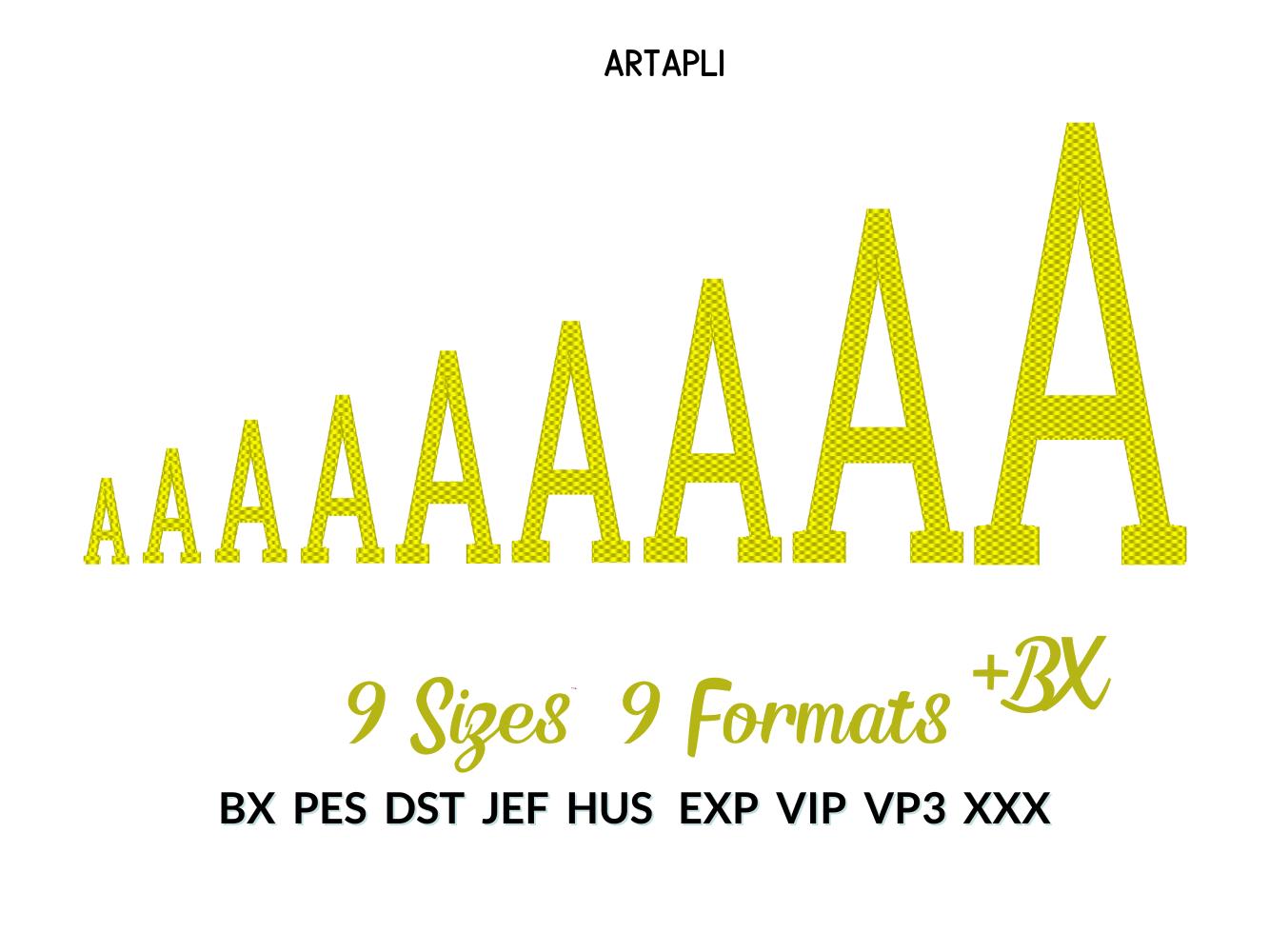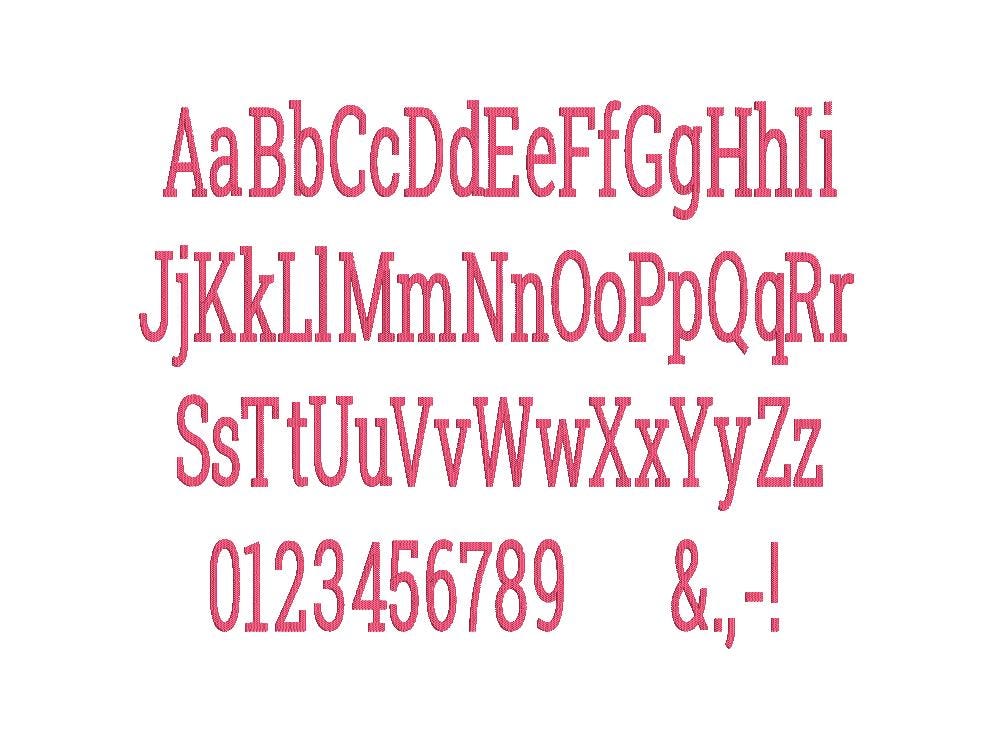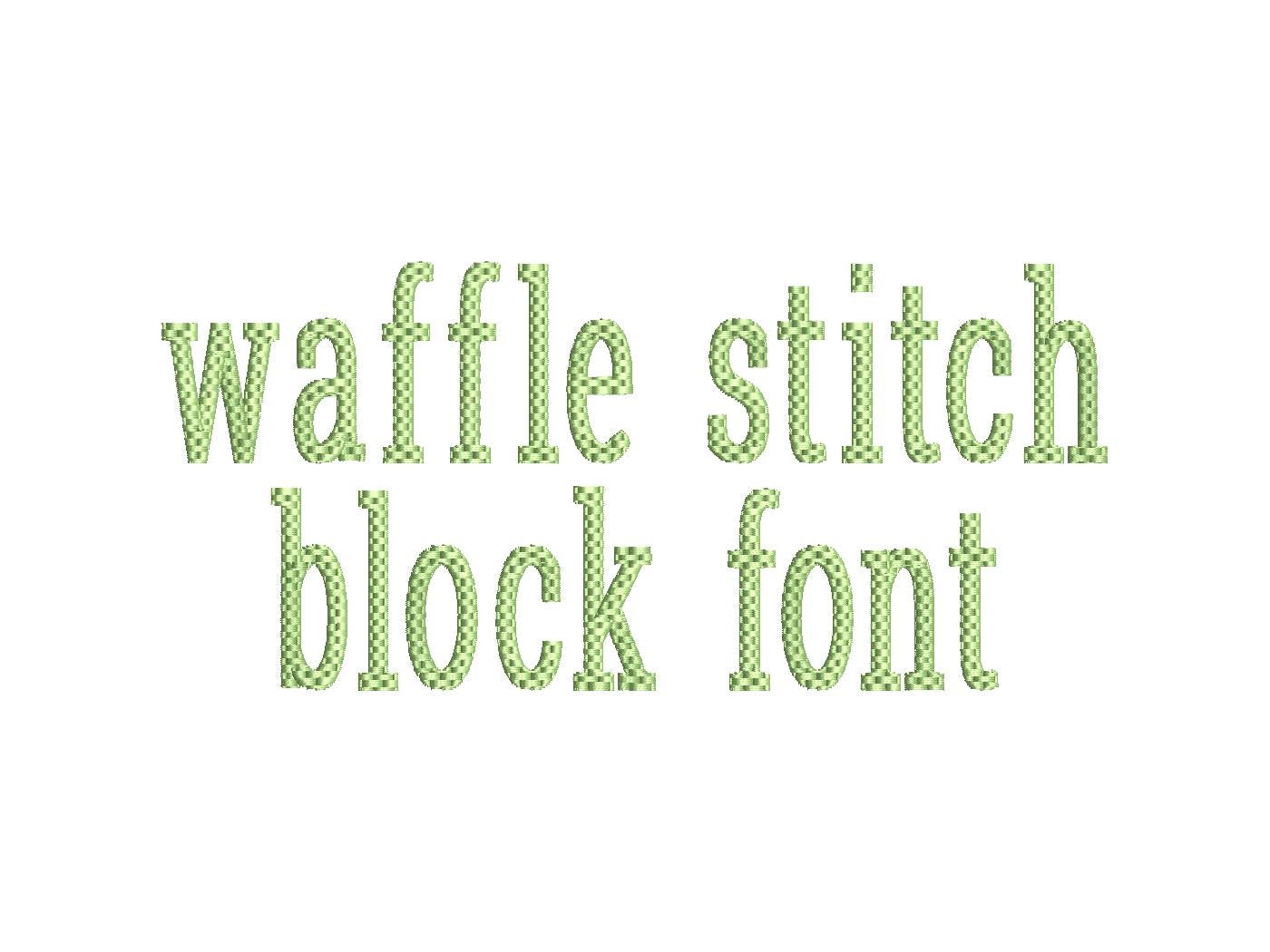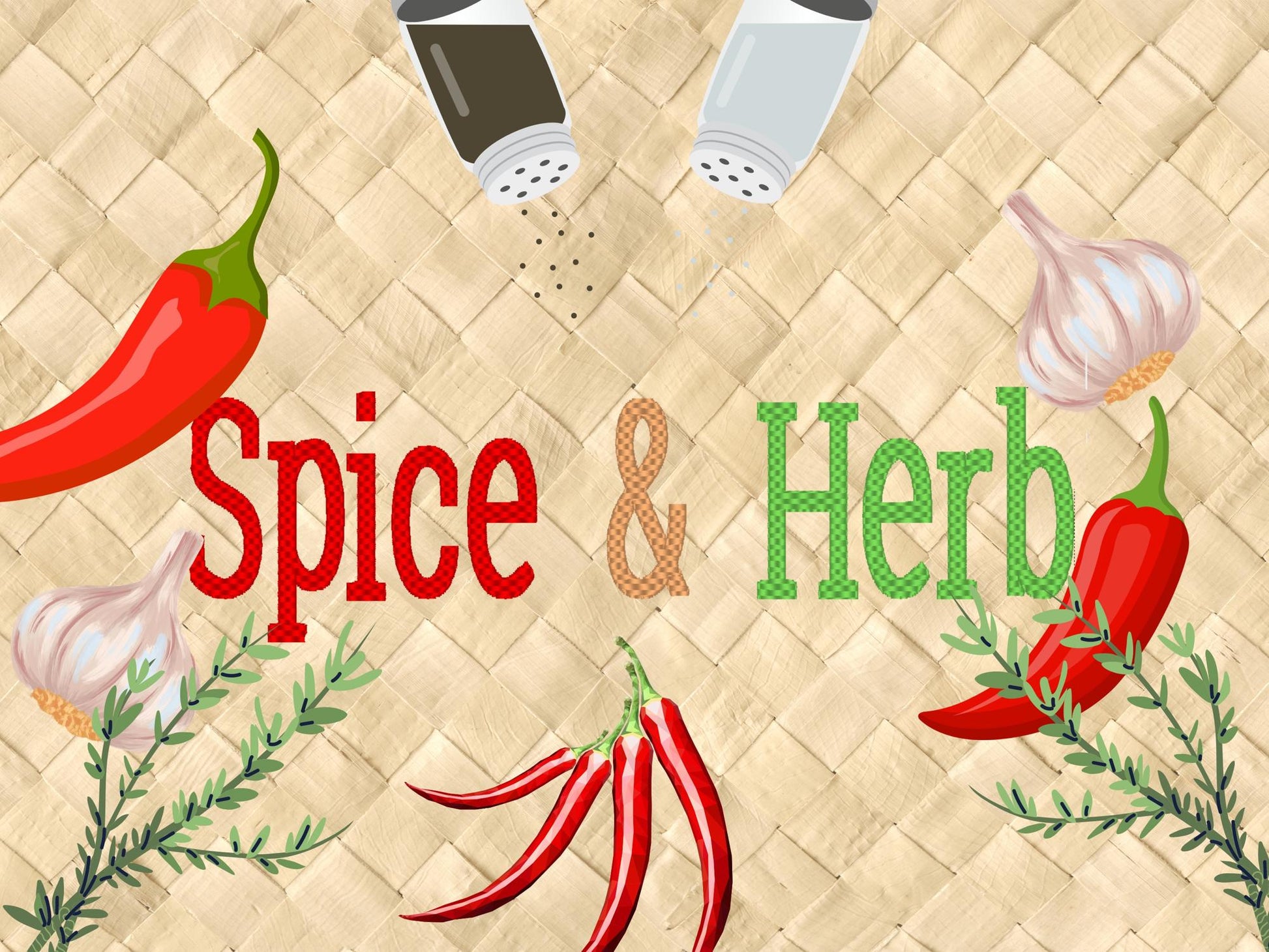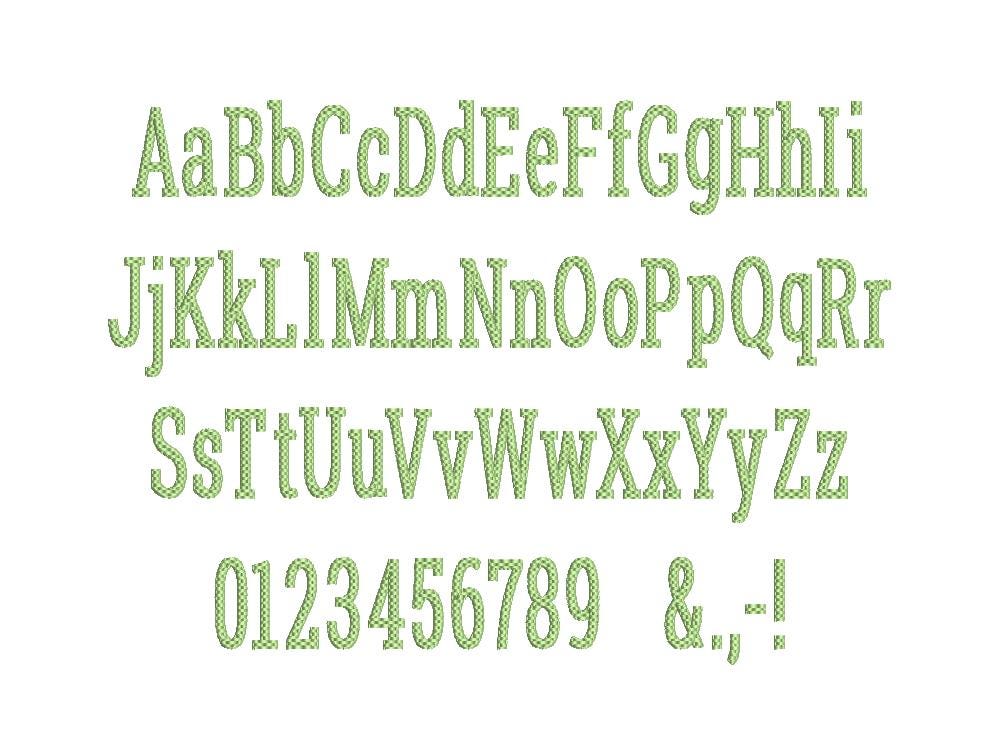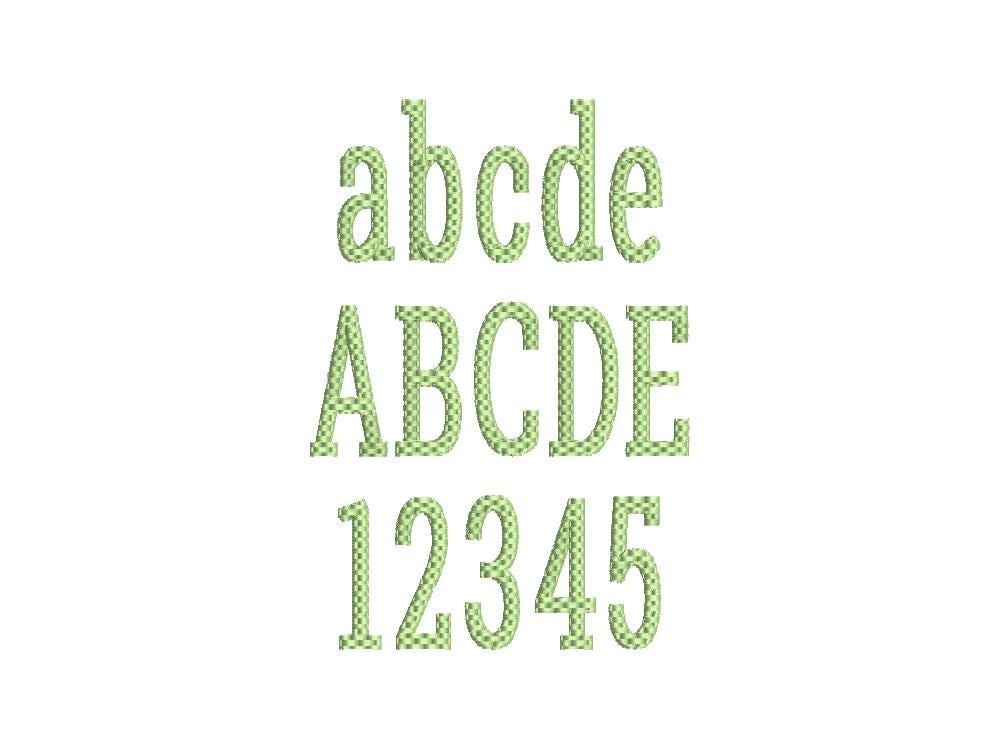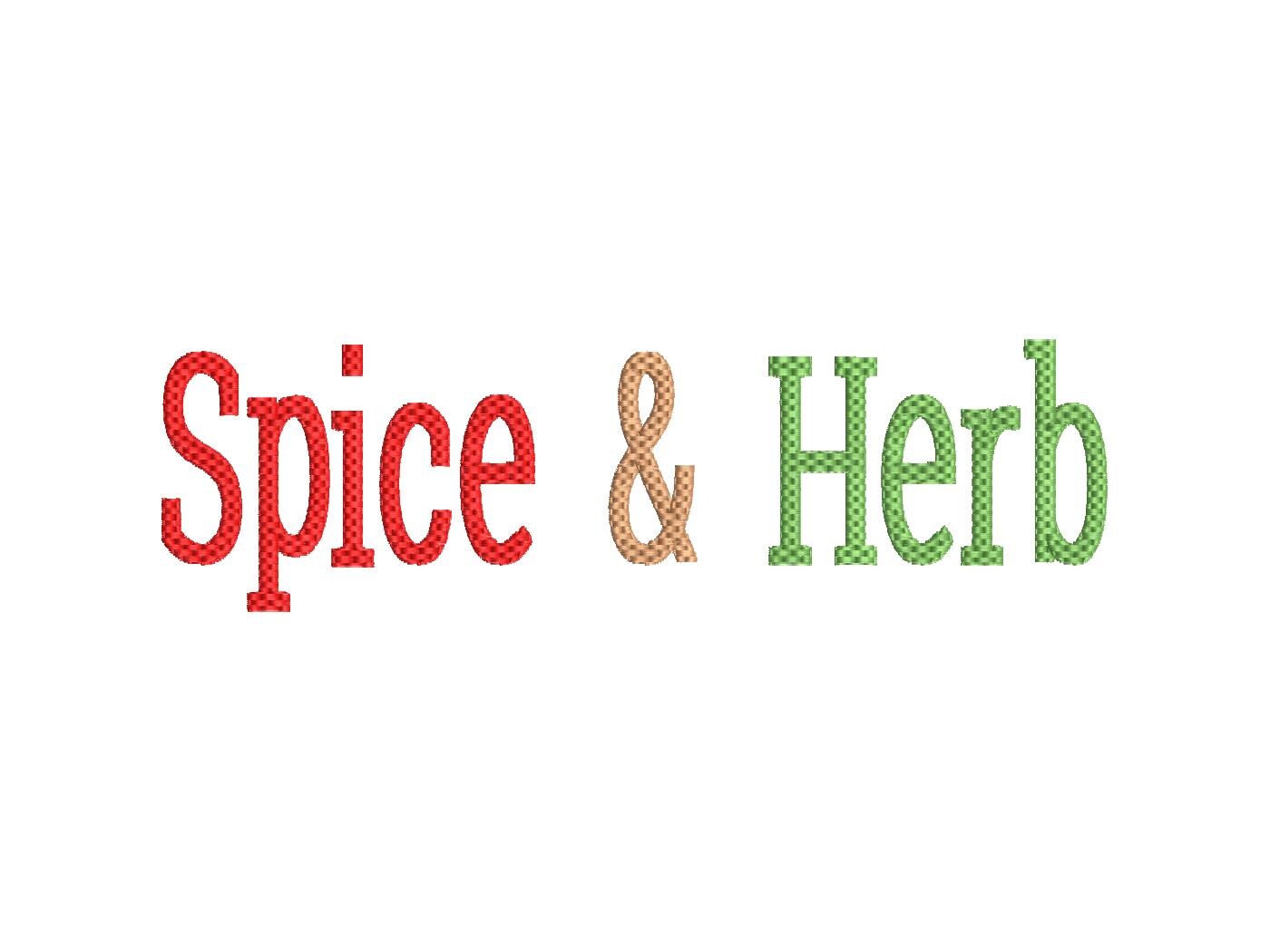
Or click to open the linkA narrow block font with a waffle textured fill. Great for monograms, names, team shirts and bags.
Uppercase and lowercase letters, numbers 0 to 9 and punctuation. Nine sizes: 1.2, 1.6, 2, 2.4, 3, 3.4, 4, 5 and 6.3 inches.